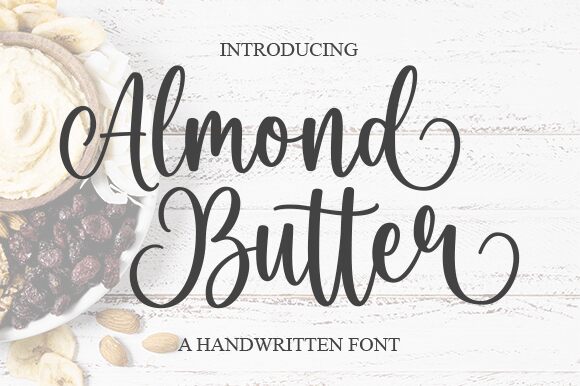
Almond Butter
Almond Butter is a light handwritten font designed by Aldi Raya Pradipta. Its beautiful calligraphic style makes it perfect for logo designs, greeting cards, invitations and other creative projects.